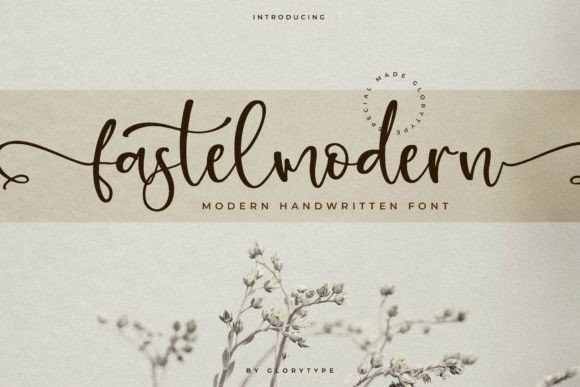
Prepare to be mesmerized by Fastelmodern, the breathtaking script font family that will add a touch of elegance and sophistication to your creative endeavors. With its meticulously crafted curves and graceful strokes, Fastelmodern effortlessly captures the essence of handwritten artistry, evoking a sense of timeless beauty and charm.
Step into a world of boundless possibilities with Fastelmodern, where your imagination can run wild. Whether you're designing logos, branding projects, homeware designs, product packaging, or anything in between, this versatile font will elevate your work to new heights. Its captivating presence adds a personal touch that resonates with audiences, leaving an unforgettable impression.
Fastelmodern's versatility shines through its ability to adapt seamlessly to various design styles. It effortlessly complements modern and traditional aesthetics, adding a touch of sophistication and elegance to any project. Its intricate details and flowing lines create a visual masterpiece that commands attention and captivates hearts.
Experience the sheer joy of creating with Fastelmodern, where every letter dances across the page with grace and charm. Let your creativity flourish as you explore the endless possibilities that this font family offers. From mugs and quotes to posters and shopping bags, Fastelmodern transforms ordinary designs into extraordinary works of art.
With Fastelmodern, the sky's the limit. Its timeless appeal makes it the perfect choice for book covers, name cards, invitation cards, greeting cards, labels, photography, watermarks, special events, and countless other projects. Its versatility ensures that your creations will stand out from the crowd, leaving a lasting impression on all who encounter them.
Join the creative revolution and embrace the beauty of Fastelmodern. Unleash your imagination and watch as your projects come to life with a touch of elegance and sophistication. Experience the magic of Fastelmodern today and let your creativity soar.